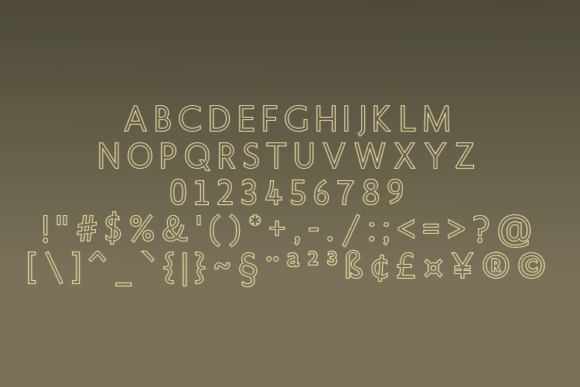
Discover the Bold and Versatile Blankco Outline Font
In the world of typography, a well-designed font can make all the difference in creating visually stunning designs. One such font that has gained attention in recent times is the Blankco Outline Bold Font. This fresh, geometric, sans-serif font is perfect for designers and crafters looking to add a touch of modernity to their work.
What is Blankco Outline Font?
Blankco Outline is a geometric sans-serif font that boasts a big x-height value, geometrical letterforms, sharp edges, and a small stroke contrast. These characteristics are reminiscent of the neo-grotesk fonts of the 20th Century, but with a modern twist. The font’s clean lines, precise curves, and bold appearance make it an excellent choice for a wide range of design applications.
Key Features of Blankco Outline Font
- Geometric Design: Blankco Outline’s geometric design gives it a modern and sleek look, making it perfect for designs that require a contemporary feel.
- Big X-Height Value: The font’s large x-height value ensures that it remains legible even at smaller sizes, making it ideal for body text and captions.
- Sharp Edges: The sharp edges of Blankco Outline give it a crisp and clean appearance, which is perfect for designs that require a bold and edgy look.
- Small Stroke Contrast: The font’s small stroke contrast adds to its versatility, allowing it to be used in a variety of design applications, from headings to body text.
Uses of Blankco Outline Font
One of the most significant advantages of Blankco Outline Font is its versatility. Its clean design and bold appearance make it suitable for a wide range of design applications, including:
- Magazines and Newspapers: Use Blankco Outline as a headline font to grab attention and add a touch of modernity to your publication.
- Posters and Flyers: The font’s bold appearance makes it perfect for creating eye-catching posters and flyers that require a strong visual impact.
- Branding and Logo Design: Blankco Outline’s geometric design and clean lines make it an excellent choice for creating modern and sleek logos.
- Websites and Digital Media: The font’s legibility and versatility make it suitable for use on websites, social media, and other digital platforms.
Why Designers and Crafters Love Blankco Outline Font
Designers and crafters love Blankco Outline Font for its unique combination of geometric design, bold appearance, and versatility. Here are a few reasons why:
- Easy to Read: The font’s big x-height value and clear letterforms make it easy to read, even at smaller sizes.
- Highly Versatile: Blankco Outline can be used in a wide range of design applications, from print to digital media.
- Modern and Sleek: The font’s geometric design and clean lines give it a modern and sleek appearance that is perfect for contemporary designs.
In conclusion, Blankco Outline Bold Font is a versatile and modern sans-serif font that is perfect for designers and crafters looking to add a touch of geometric elegance to their work. Its clean design, bold appearance, and versatility make it suitable for a wide range of design applications, from magazines and posters to branding and digital media. Whether you’re a seasoned designer or a crafter looking to elevate your designs, Blankco Outline Font is an excellent choice.